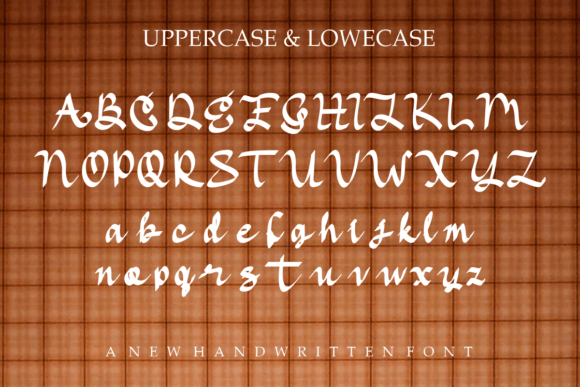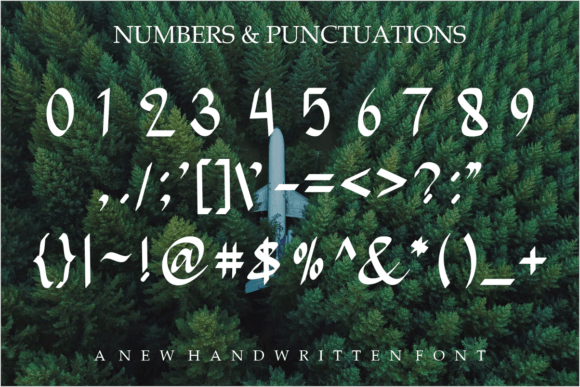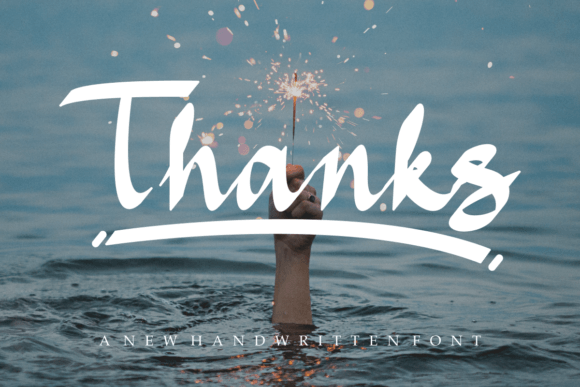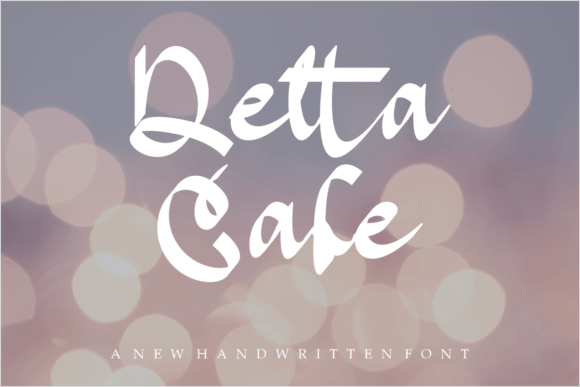
Qaylas Font
About Qaylas Font
“Qaylas” is more than just a font; it’s a cool and modern handwritten typeface designed to infuse a whimsical and quirky charm into your designs. With its playful and contemporary qualities, this font adds a touch of brightness to each of your creative projects.
The cool and modern vibe of “Qaylas” is immediately apparent in its handwritten design. Each letter is crafted with a sense of whimsy, contributing to an overall aesthetic that is both playful and up-to-date. This makes it an ideal choice for projects that demand a font with a cool and quirky appeal.
The versatility of “Qaylas” becomes evident in its adaptability to various design contexts. Whether used in branding to create a distinctive visual identity or to add a playful touch to marketing materials, this font confidently fits into a diverse range of creative projects.
Imagine “Qaylas” gracing product packaging, where its cool and quirky script adds a touch of personality. Picture it in digital graphics or social media posts, creating a visually engaging and contemporary atmosphere. “Qaylas” becomes a font that not only looks modern but also enhances the overall visual appeal of your designs.
In summary, “Qaylas” is not just a font; it’s a design asset that brings a cool and modern touch to your creative projects. Let it be the choice for adding whimsy to your branding, marketing materials, and more. With “Qaylas,” every project becomes an opportunity to showcase the beauty of handwritten typography with a playful and contemporary twist.